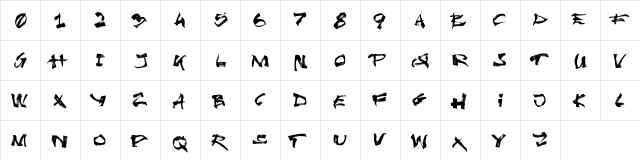
Undergrunge Tornado Demo Regular
Design Context for Undergrunge Tornado Demo Typeface
Undergrunge Tornado Demo embraces imperfection — its rough, textured character adds raw authenticity to designs that want to feel lived-in and unconventional.
A strong fit for alternative music projects, graffiti-adjacent design, and anything that deliberately resists polish.
Pro Tip: Use Undergrunge Tornado Demo at larger sizes where the texture and irregularity of each letterform can be clearly seen — it loses its character at small sizes.